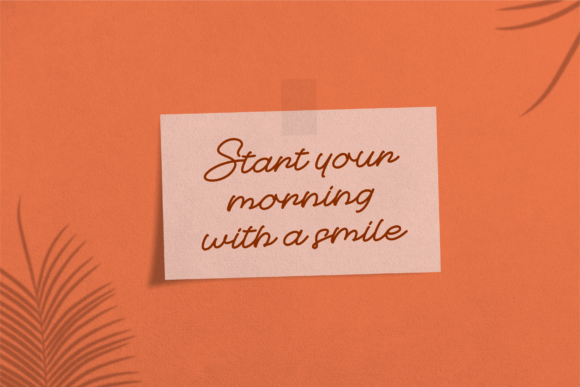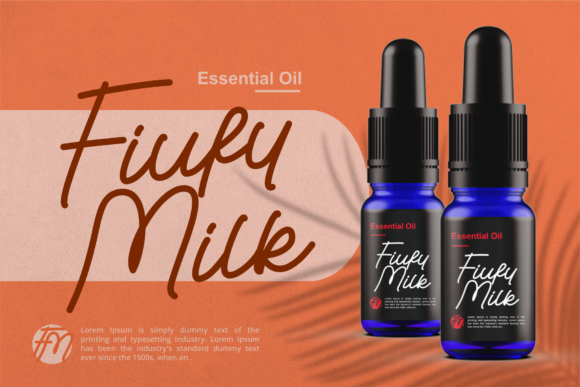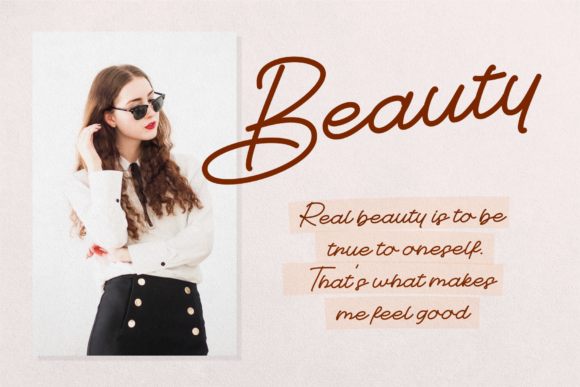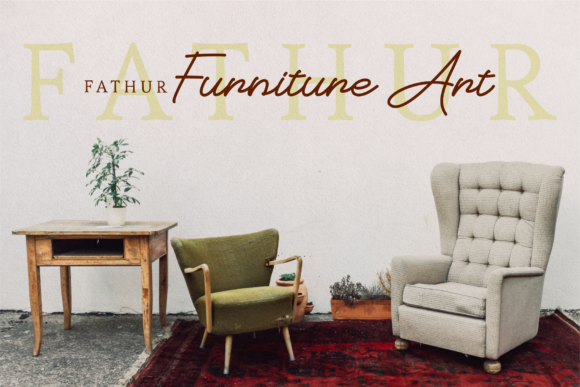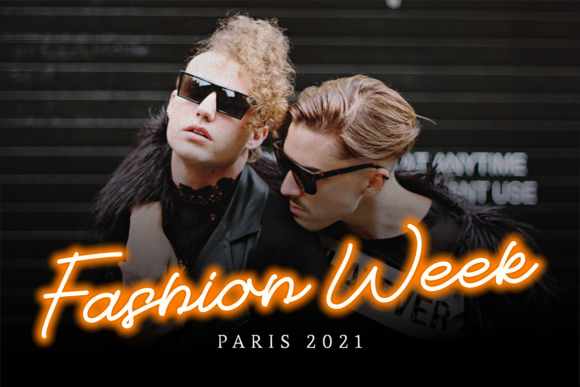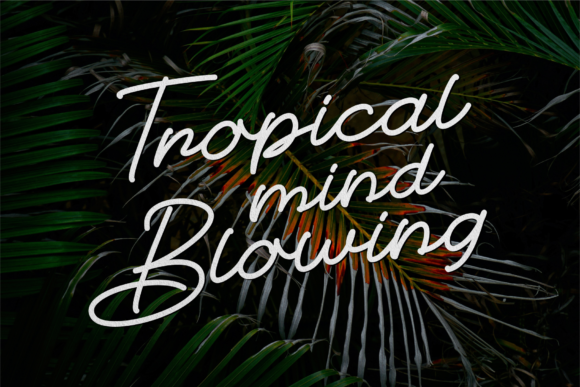
Discover the Elegance of Avida La Bila Font: A Delicate Handwritten Masterpiece
Are you a designer or crafter looking for a font that exudes elegance and sophistication? Look no further than Avida La Bila Font. This delicate and elegant handwritten font is sure to capture your heart with its distinct and well-rounded letters. In this article, we’ll dive into the world of Avida La Bila, exploring its unique features, versatility, and uses.
The Beauty of Avida La Bila Font
Avida La Bila Font is a true masterpiece, boasting a unique and refined style that sets it apart from other fonts. Its delicate and elegant appearance makes it perfect for a wide range of design projects, from wedding invitations and branding materials to digital content and craft projects.
The font’s distinct and well-rounded letters are carefully crafted to create a beautiful, flowing script that is both easy to read and visually stunning. Whether you’re looking to add a touch of sophistication to your designs or create a bold statement, Avida La Bila Font is the perfect choice.
One of the standout features of Avida La Bila Font is its incredible versatility. This font can be used in a variety of design projects, including:
- Digital content, including social media graphics and blog posts
- Craft projects, such as handmade cards and scrapbooking
Whether you’re a professional designer or a crafty DIY enthusiast, Avida La Bila Font is sure to become a go-to in your design arsenal.
Why Choose Avida La Bila Font?
So, what sets Avida La Bila Font apart from other fonts? Here are just a few reasons why designers and crafters love this font:
- Elegant and sophisticated: Avida La Bila Font exudes elegance and sophistication, making it perfect for high-end designs and projects.
- Unique and distinctive: The font’s unique letterforms and flowing script make it stand out from more traditional fonts.
- Versatile: Avida La Bila Font can be used in a wide range of design projects, from digital content to craft projects.
- Easy to read: Despite its elegant appearance, Avida La Bila Font is easy to read, making it perfect for body text and other applications where readability is key.
Tips for Using Avida La Bila Font
To get the most out of Avida La Bila Font, here are a few tips to keep in mind:
- Pair with contrasting fonts: Avida La Bila Font pairs beautifully with bold, sans-serif fonts. Try pairing it with a font like Arial or Helvetica for a striking contrast.
- Use for headlines and titles: Avida La Bila Font is perfect for headlines and titles, where its elegant appearance can really shine.
- Experiment with colors and textures: Avida La Bila Font looks beautiful in a variety of colors and textures. Don’t be afraid to experiment and find the perfect combination for your design.
Avida La Bila Font is a true gem in the world of typography. Its delicate and elegant appearance, combined with its versatility and readability, make it a must-have for designers and crafters. Whether you’re looking to create stunning wedding invitations, elegant branding materials, or eye-catching digital content, Avida La Bila Font is the perfect choice. So why wait? Fall in love with Avida La Bila Font today and take your designs to the next level!